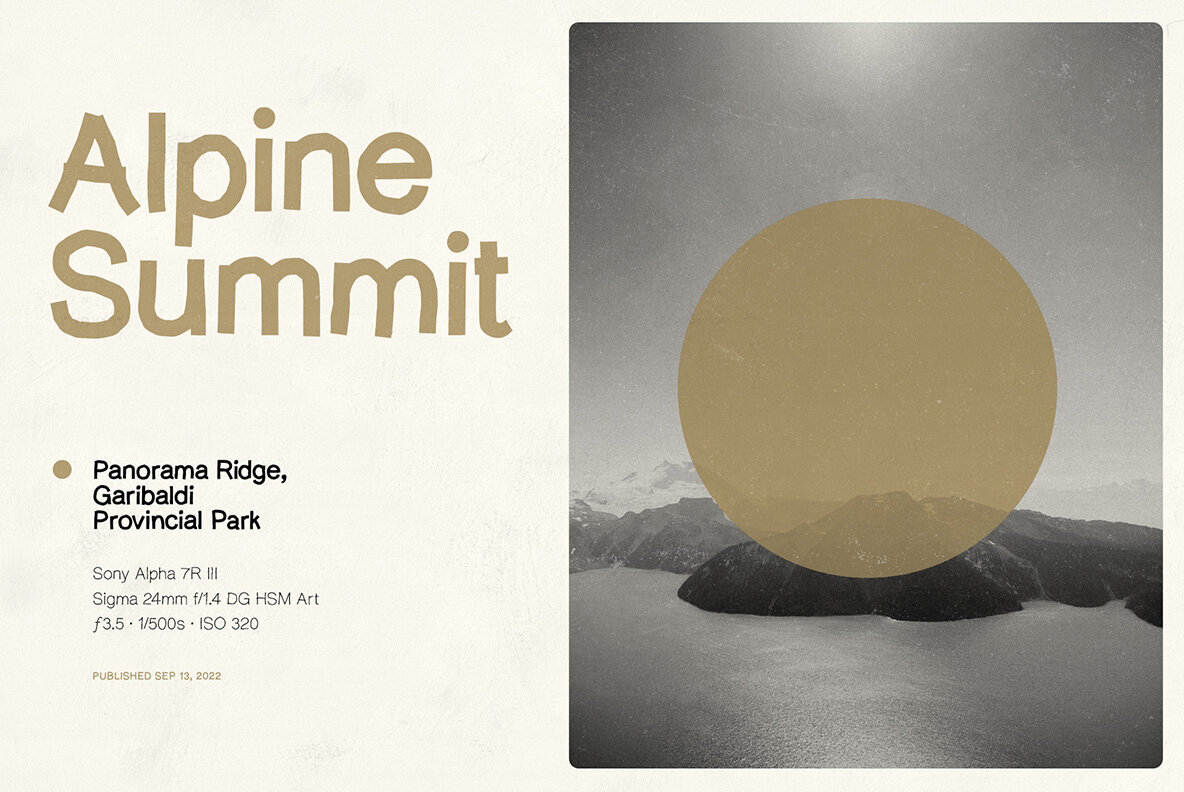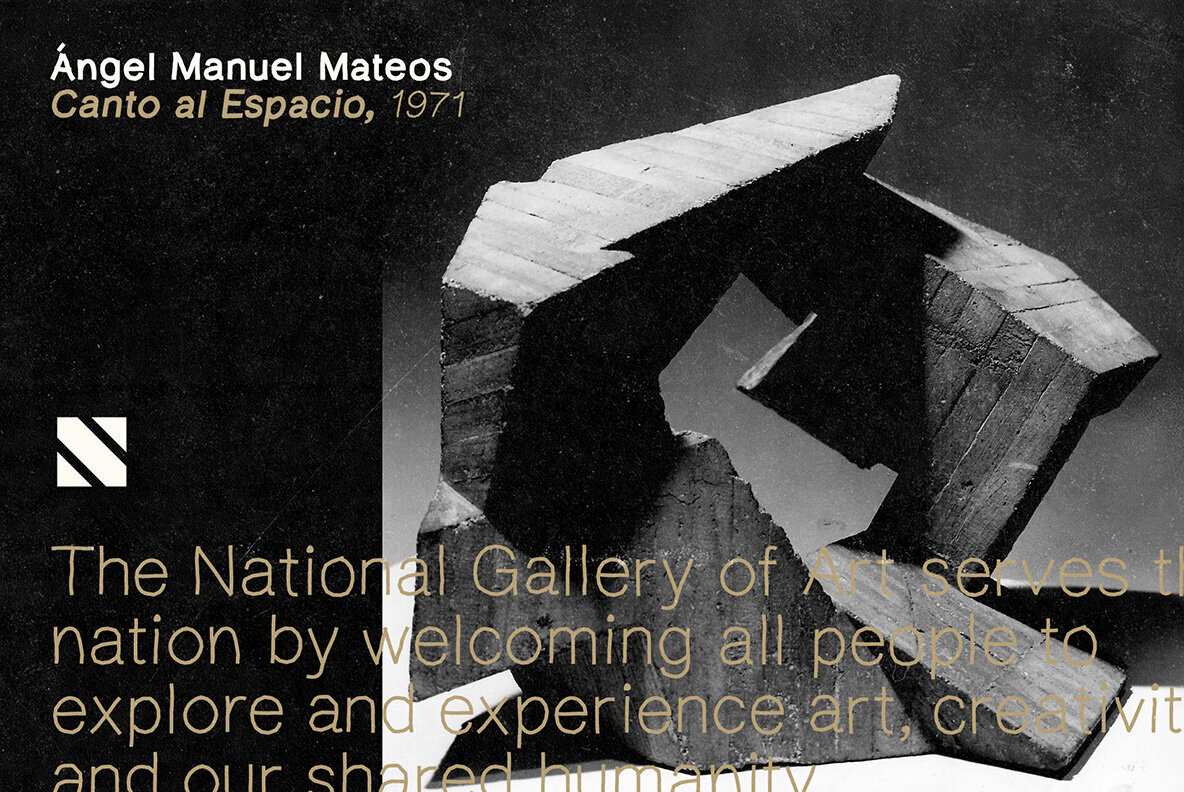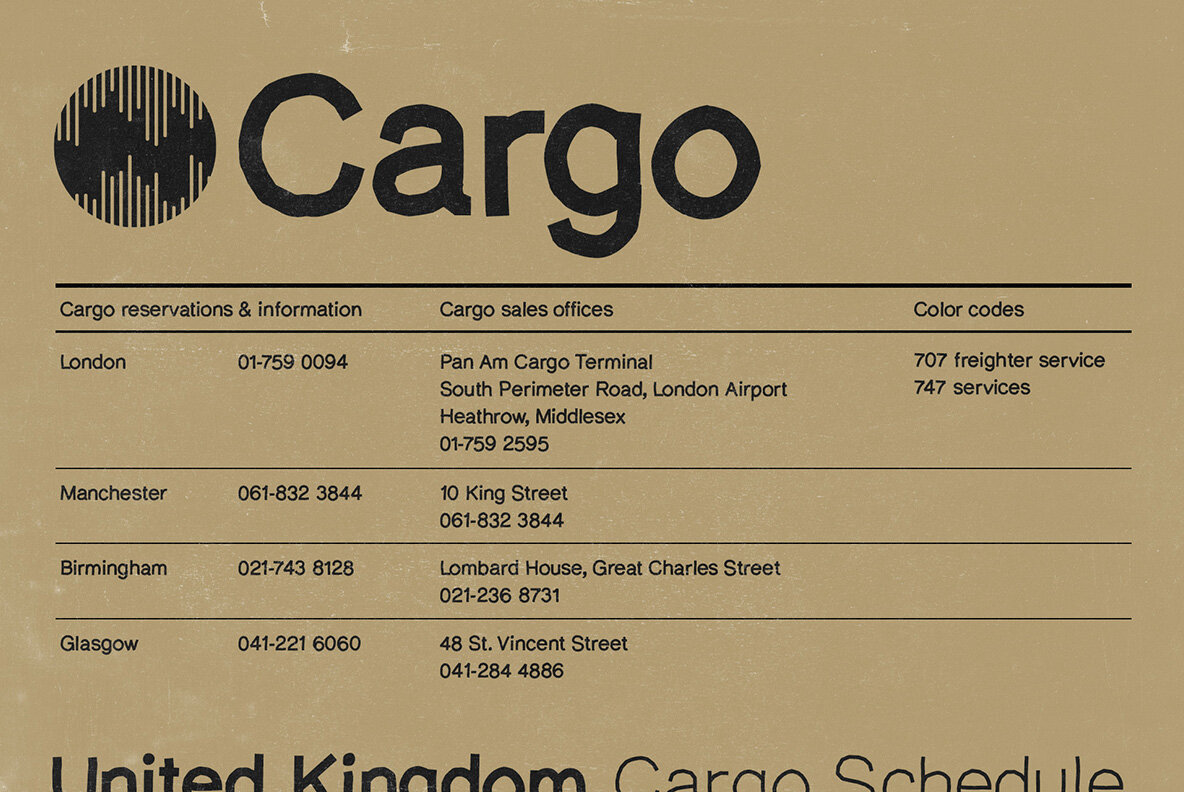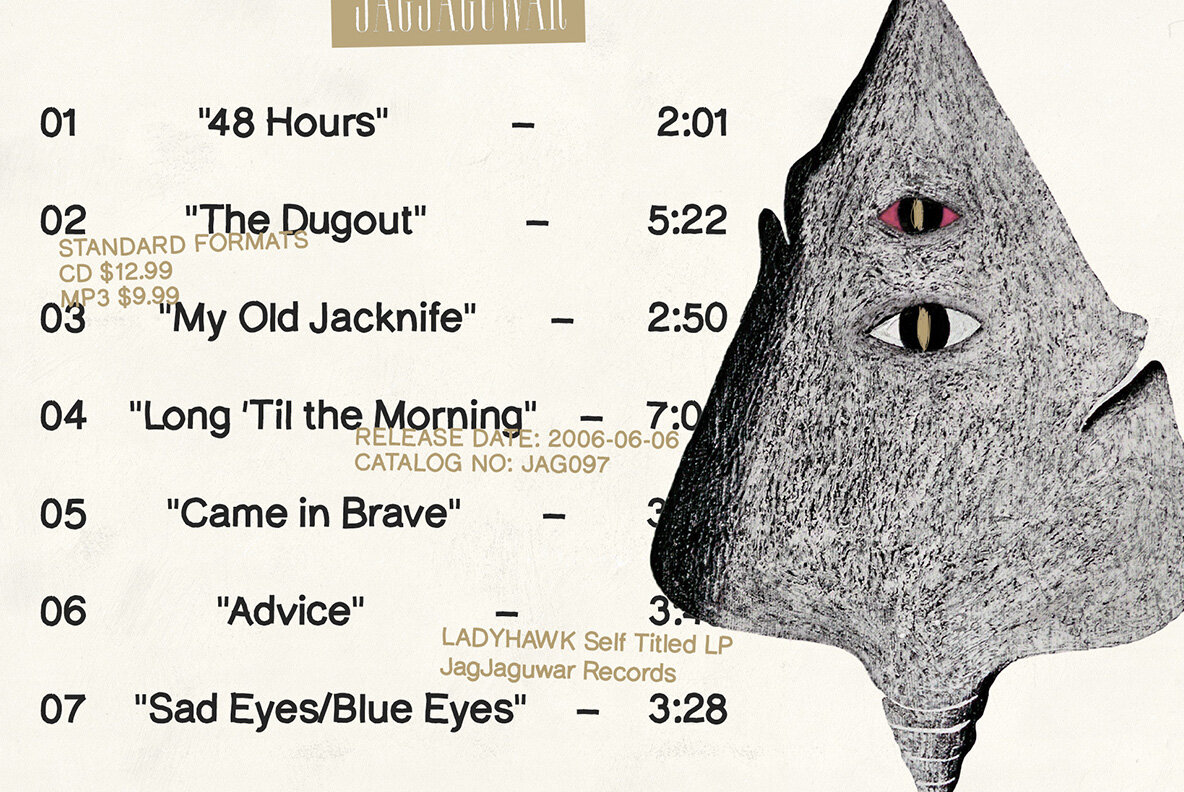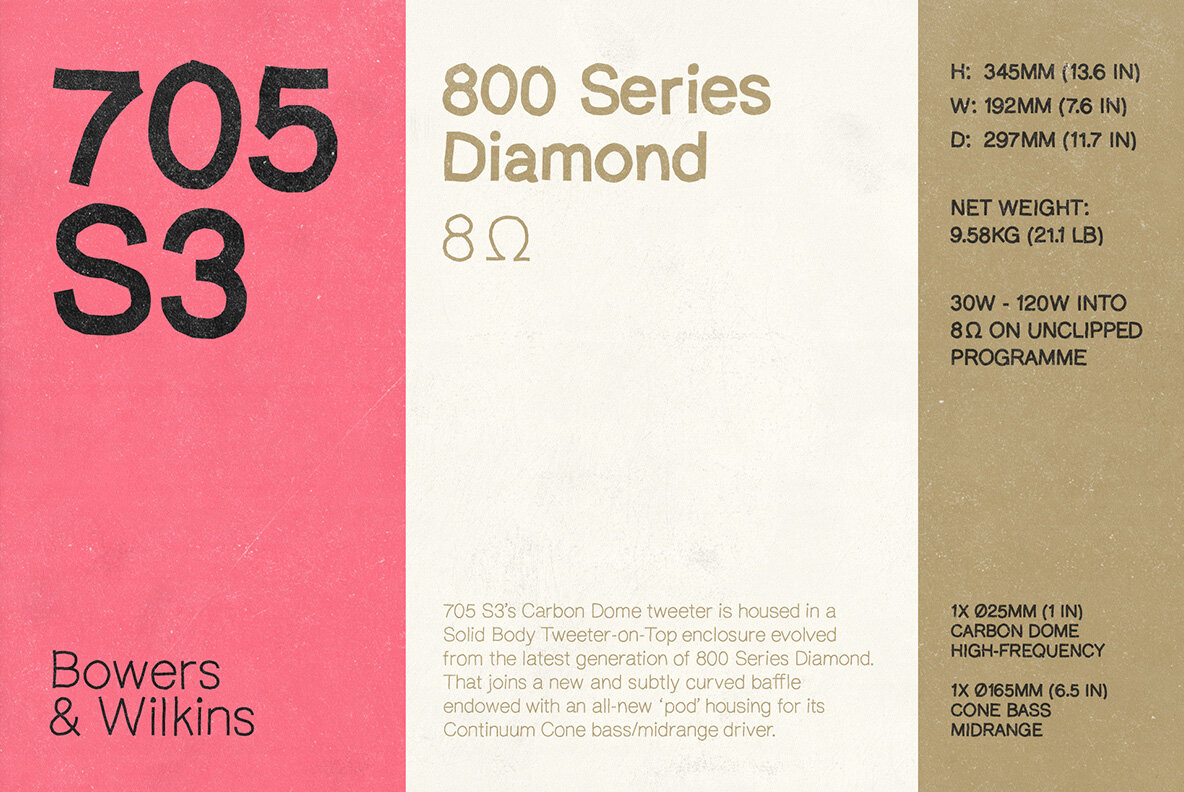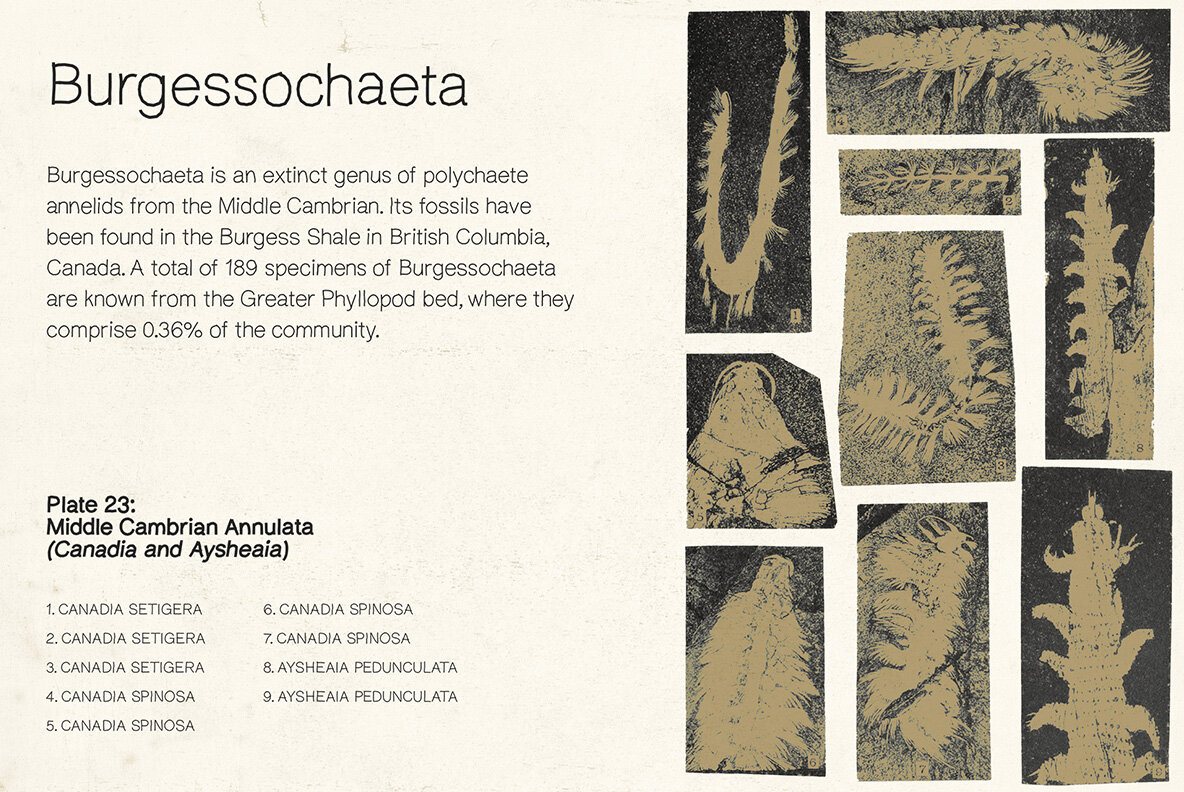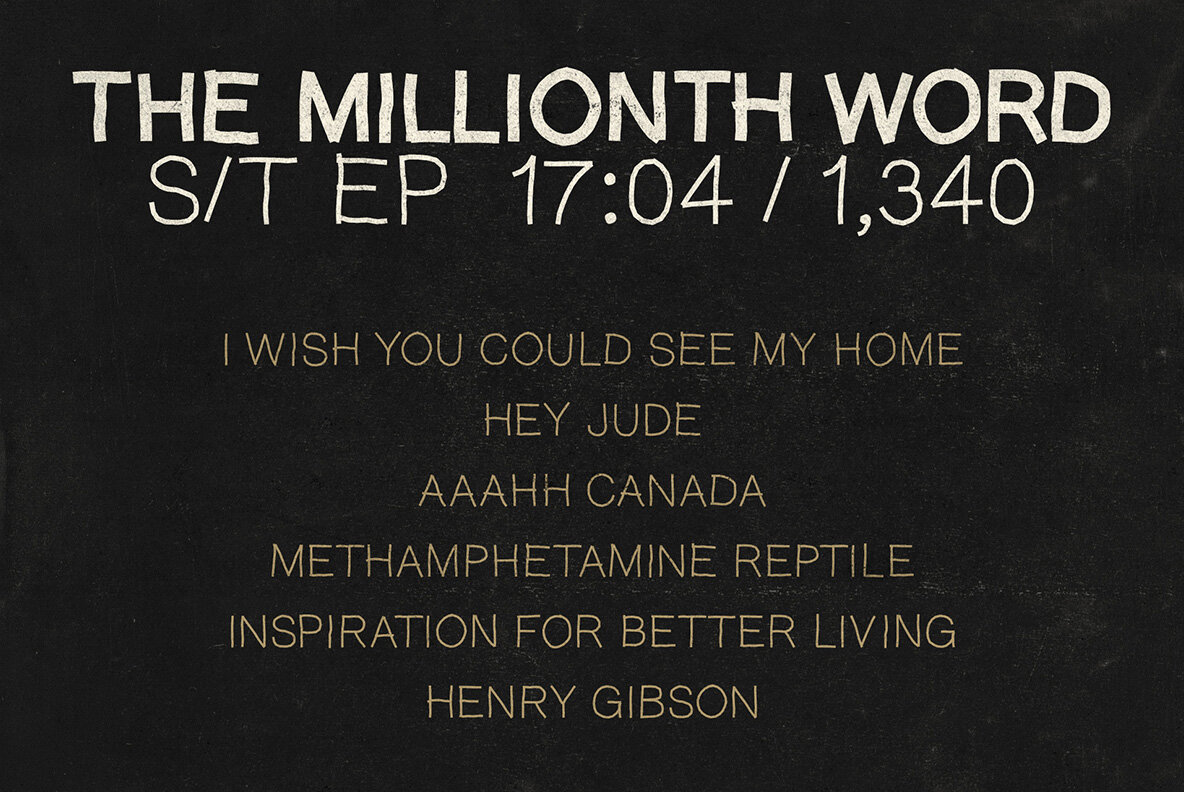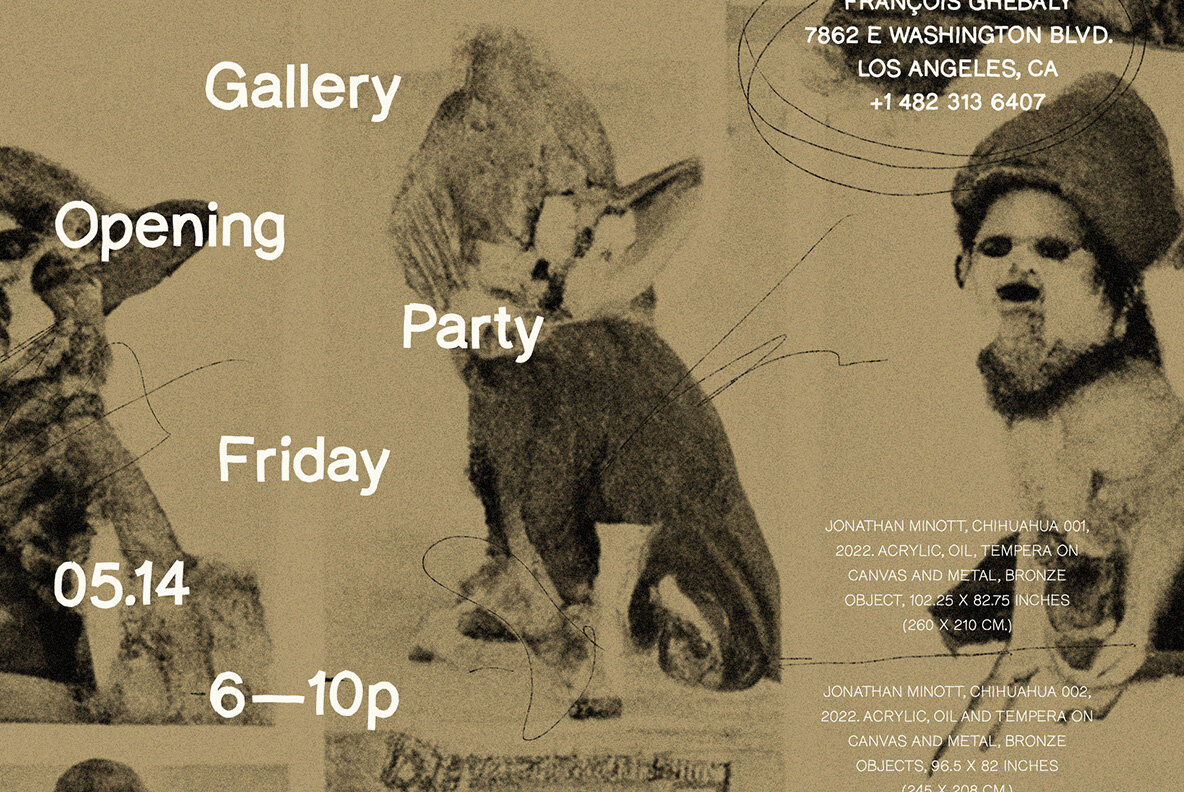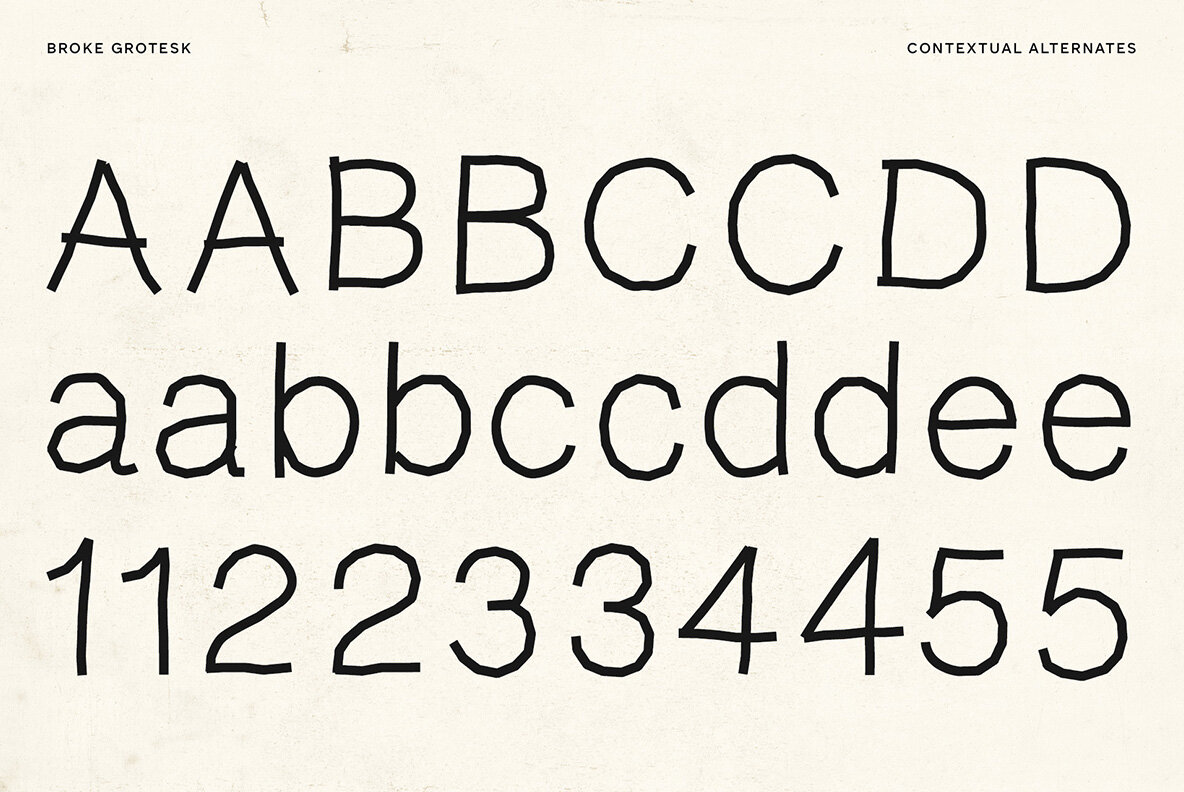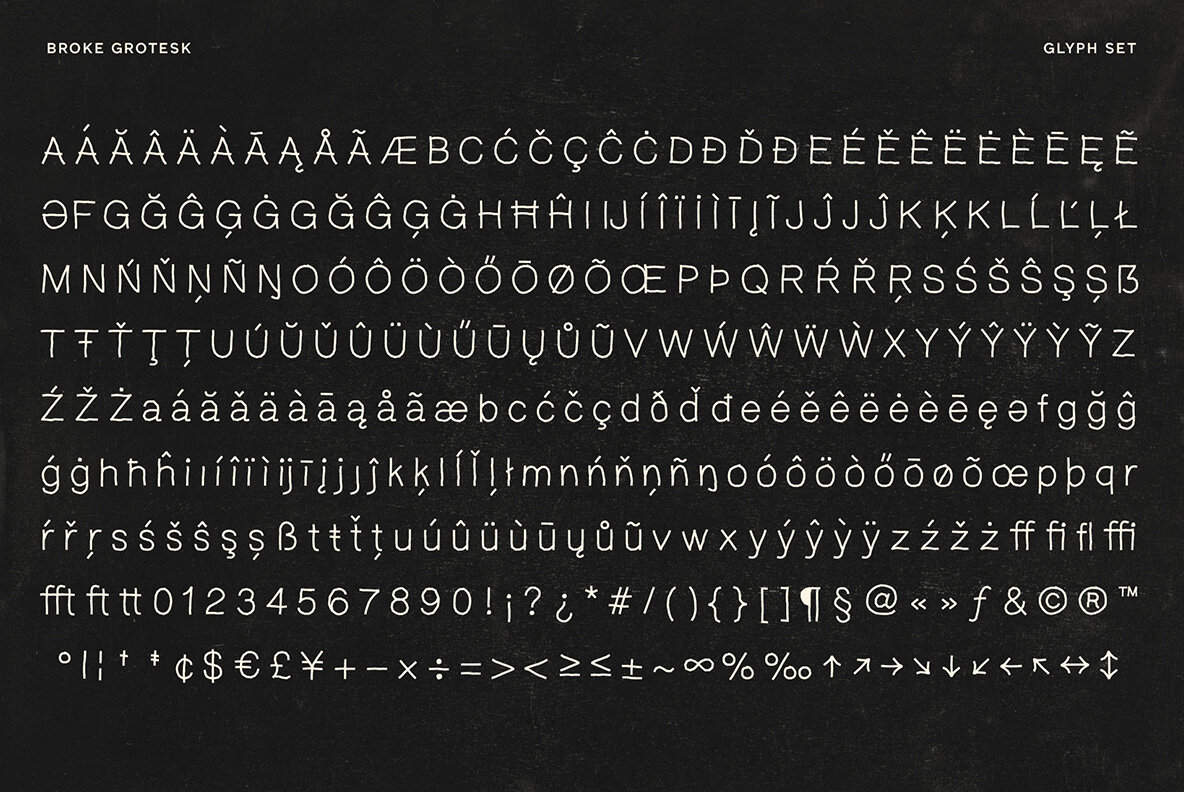
Broke Grotesk Font
Broke Grotesk Regular
Broke Grotesk Regular Italic
Broke Grotesk Bold
Broke Grotesk Bold Italic
Broke Grotesk is a hand-drawn sans serif typeface. It is flawed by design–yet very legible–giving any project a human touch as an alternative to a standard sans serif.
• 2 weights (Regular, Bold)
• Italics
• Contextual alternates
• Accents & multilingual characters.
With a sense of humor and warmth as well as great readability, this hand-drawn sans serif is great for film titles, posters, packaging, magazines, websites and more.